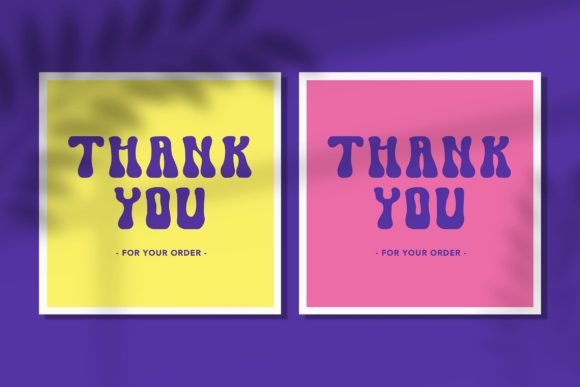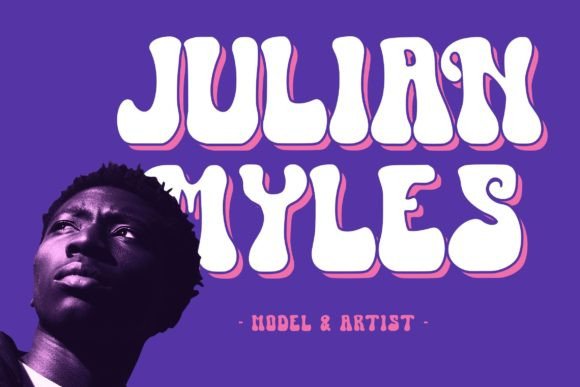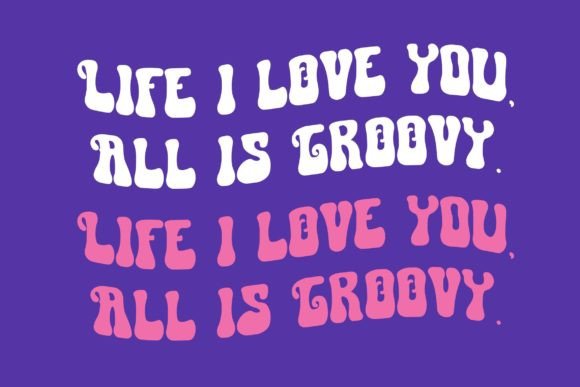
Flying Soul Font: Elevate Your Designs with a Groovy Retro Display Font
Are you tired of using the same old fonts in your designs? Do you want to add a touch of personality and whimsy to your branding projects, logos, and wedding designs? Look no further than the Flying Soul Font, a groovy retro display font that’s perfect for crafters and designers who want to make a statement.
What is Flying Soul Font?
Flying Soul Font is a distinctive handwritten font that’s designed to add a touch of cool typography to any project. With its unique and quirky characters, this font is perfect for designers who want to create eye-catching branding projects, logos, wedding designs, media posts, advertisements, product packaging, product designs, labels, photography, watermarks, invitations, stationery, and more.
Key Features of Flying Soul Font
- Distinctive Handwritten Characters: The font features distinctive handwritten characters that are perfect for adding a personal touch to your designs.
- Groovy Retro Style: The font has a groovy retro style that’s perfect for designers who want to create vintage-inspired designs.
- Highly Versatile: Flying Soul Font is highly versatile and can be used for a wide range of design projects, from branding and logos to wedding designs and social media posts.
Why Choose Flying Soul Font?
There are many reasons why designers and crafters should choose Flying Soul Font for their design projects. Here are just a few:
- Adds Personality to Your Designs: Flying Soul Font adds a touch of personality and whimsy to your designs, making them stand out from the crowd.
- Easy to Use: The font is easy to use and customize, even for designers who are new to using unique fonts.
- High-Quality Design: The font is designed to high-quality standards, ensuring that it looks great in any design project.
How to Use Flying Soul Font
Using Flying Soul Font is easy. Here are just a few tips to get you started:
- Branding Projects: Use Flying Soul Font to create eye-catching branding projects, such as logos, business cards, and letterheads.
- Wedding Designs: Add a touch of whimsy to your wedding designs, such as invitations, stationery, and wedding signs.
- Social Media Posts: Use Flying Soul Font to create eye-catching social media posts that stand out from the crowd.
- Product Packaging: Add a touch of personality to your product packaging with Flying Soul Font.
Here are a few tips and tricks to help you get the most out of Flying Soul Font:
- Experiment with Different Sizes: Experiment with different font sizes to create visual interest and hierarchy in your designs.
- Combine with Other Fonts: Combine Flying Soul Font with other fonts to create a unique and eye-catching design.
- Use Swashes and Glyphs: Use the swashes and glyphs in Flying Soul Font to add a touch of personality to your designs.